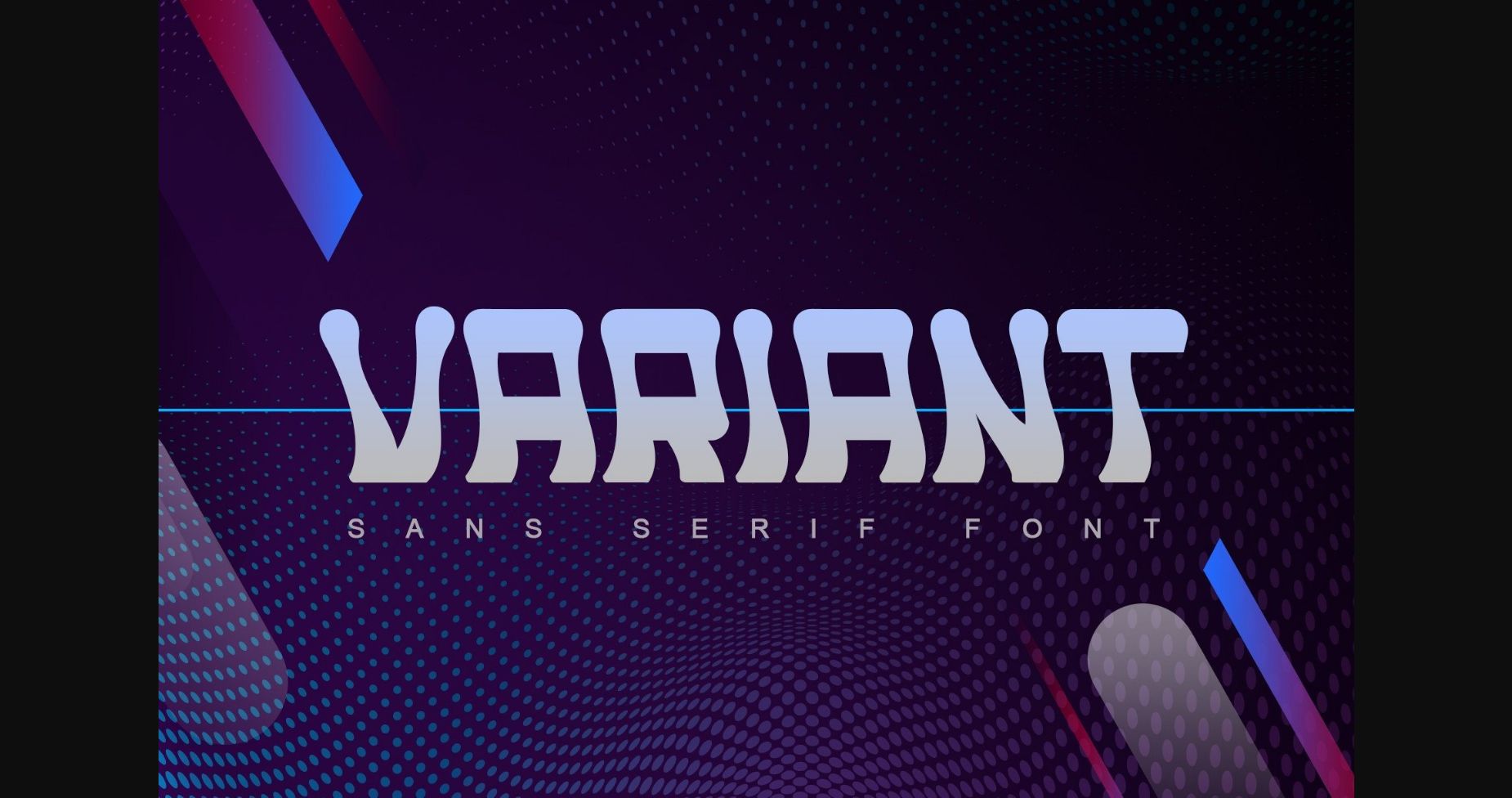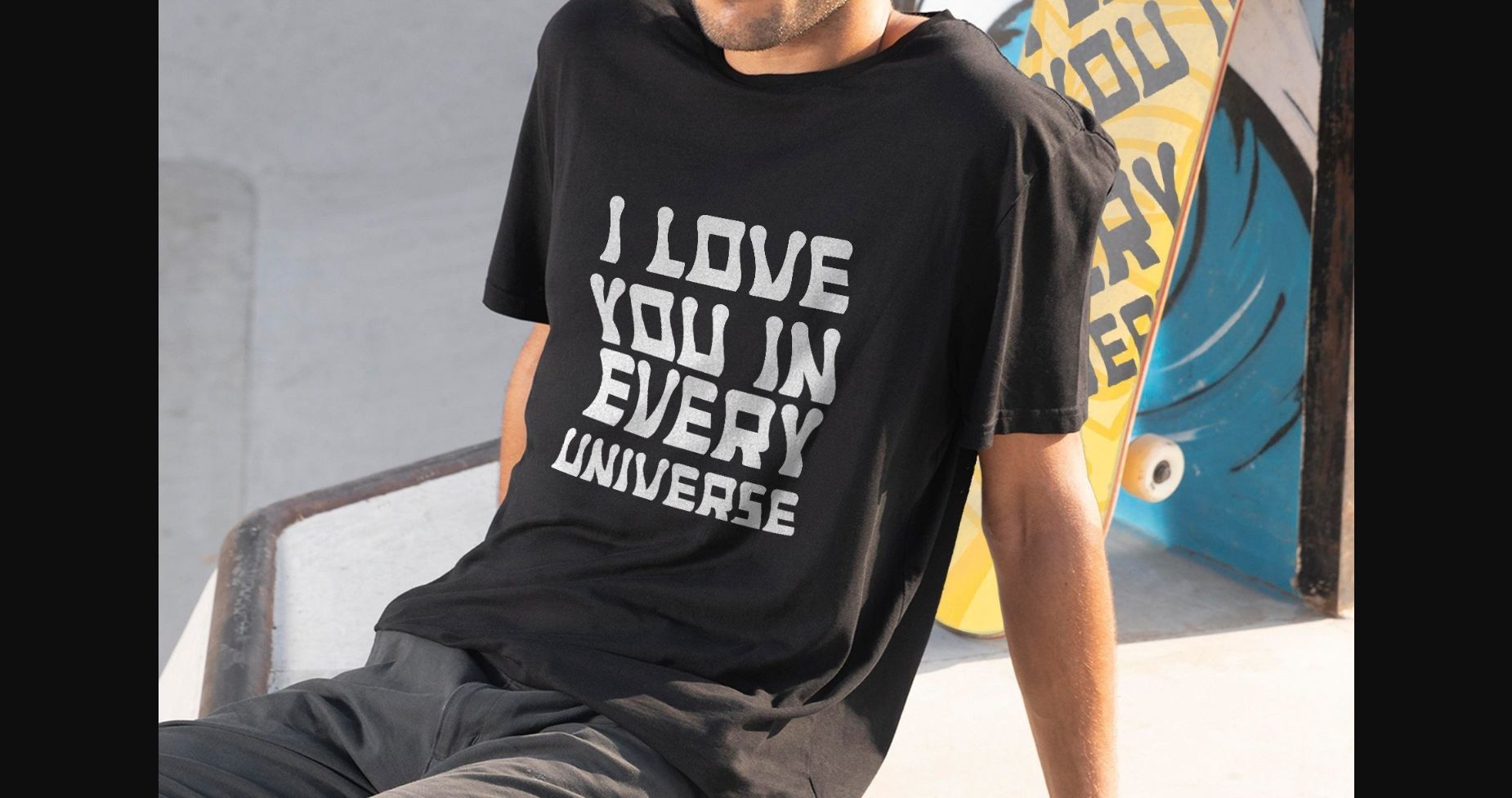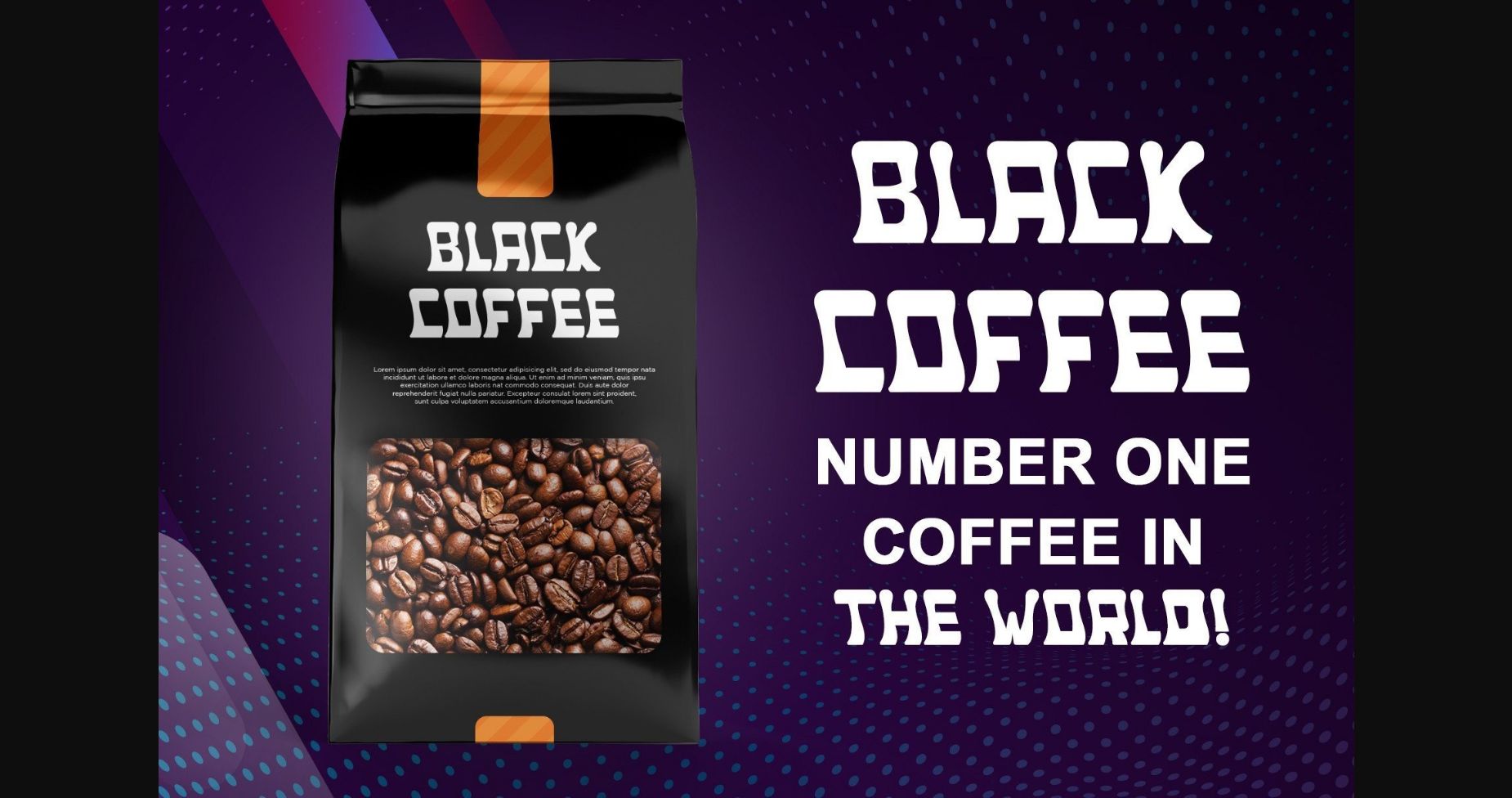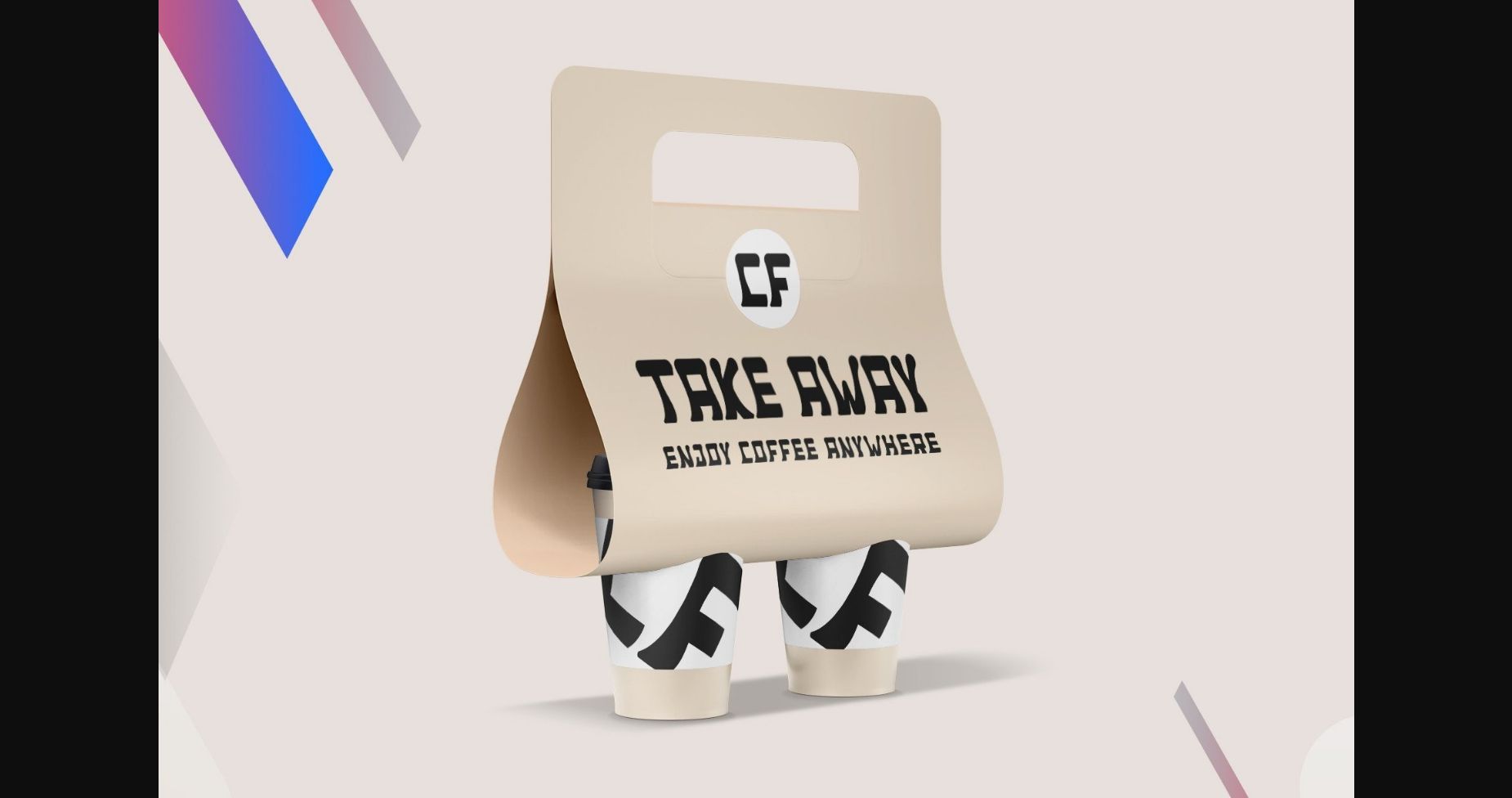
About Variant Font
Variant is a wild style sans serif font. Urban and bold, it will add a unique spark to any of your designs and make them outstanding. This font is PUA encoded, which means you can access all of the glyphs and swashes with ease!